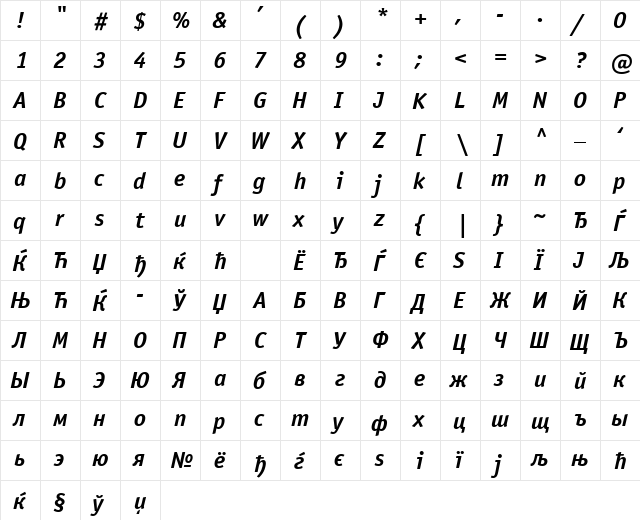
OfficinaSansISOCTT BoldItalic Font Preview
Design Context for OfficinaSansISOCTT Typeface
OfficinaSansISOCTT offers clean, dependable letterforms without strong stylistic allegiance, making it a practical choice for designers who need flexibility. The dynamic lean of this cut emphasises speed and emphasis in any layout. The heavy weight commands attention and anchors typographic hierarchies.
Pro Tip: Try OfficinaSansISOCTT for annotation and caption copy alongside an upright companion — the contrast in angle creates a dynamic but ordered typographic system.